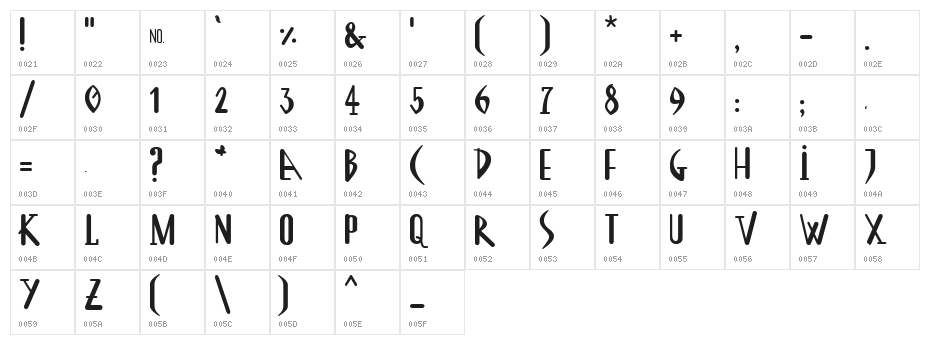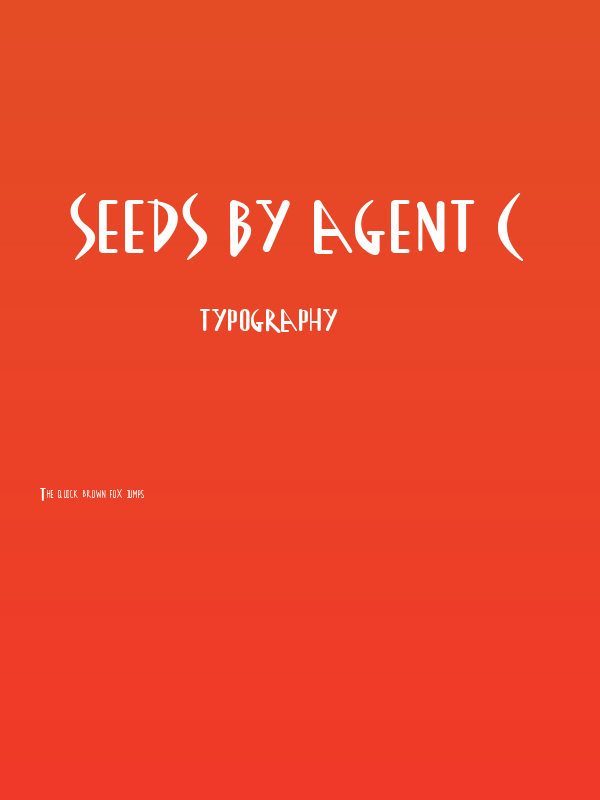
SEEDS by Agent C Font
SEEDS by Agent C Description
This font features a bold and dynamic style with a unique blend of geometric and organic shapes. The uppercase letters exhibit a strong presence with angular and curved elements, creating a sense of movement and energy. The lowercase letters maintain a consistent style, offering a harmonious balance between the characters. Numbers are designed with a playful yet sturdy appearance, making them stand out. Special characters are creatively integrated, adding to the font's versatility. Overall, this font is eye-catching and suitable for projects that require a bold statement.
| Proposed Projects | Ideal for branding, poster design, headlines, and any project needing a bold visual impact. |